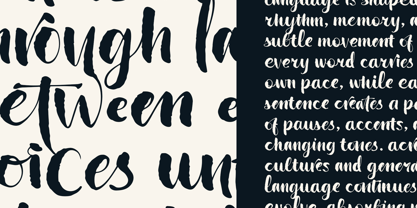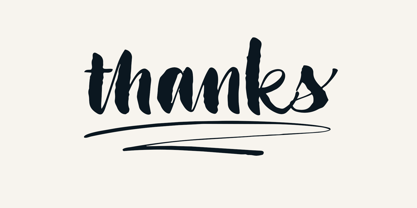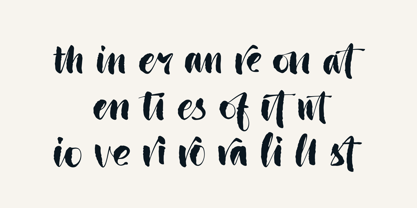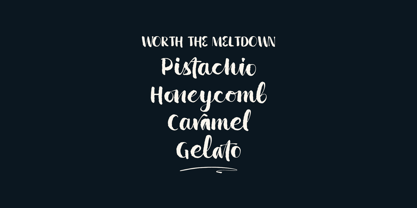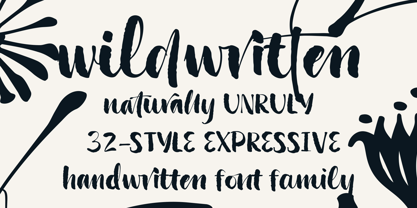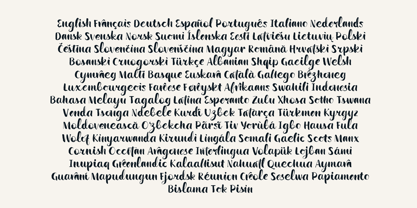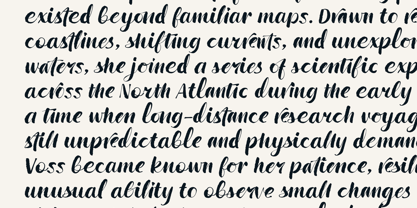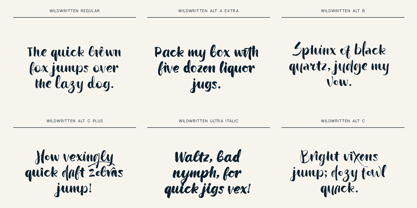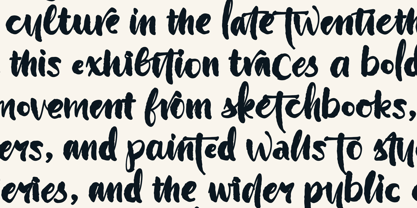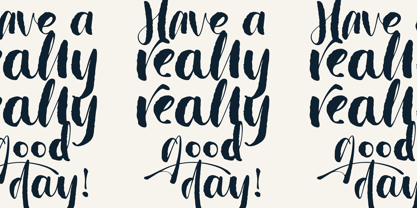
Wildwritten
par VP Creative Shop
La famille de polices Wildwritten a été conçue par Vladimir Fedotov, Plamen Petrov et publiée par VP Creative Shop. Wildwritten contient 33 styles et options de package familial. En savoir plus sur cette famille
Wildwritten is an expressive handwritten script family featuring 32 styles with organic forms, natural irregularities, alternate letterforms, and italic variations. Designed to preserve the spontaneous character of real handwriting, it combines flowing shapes with an energetic and approachable personality.
With ligatures, contextual alternates, underline swashes, floral ornaments, and extensive multilingual support, Wildwritten offers plenty of flexibility for branding, packaging, logos, wedding stationery, invitations, editorial graphics, social media, and creative display typography.
Concepteurs: Vladimir Fedotov, Plamen Petrov
Fonderie: VP Creative Shop